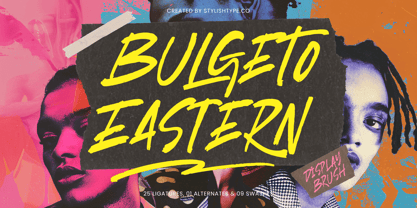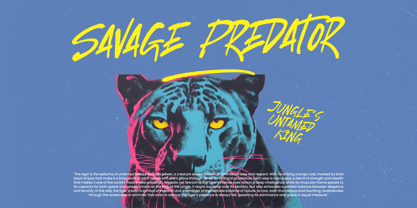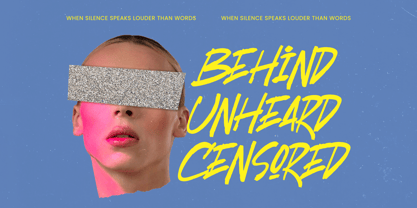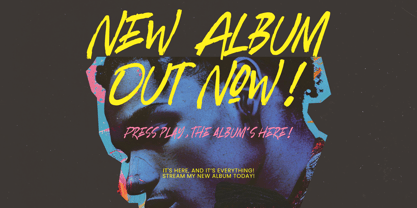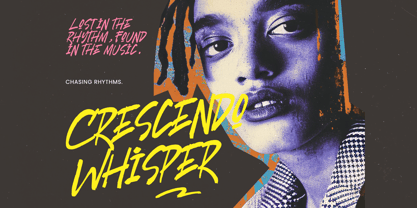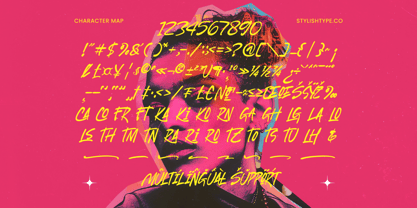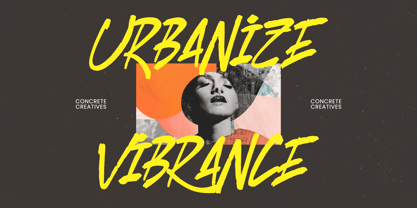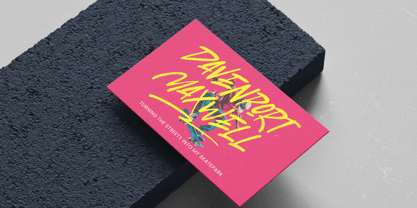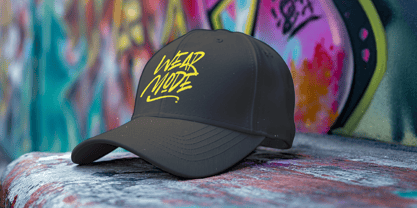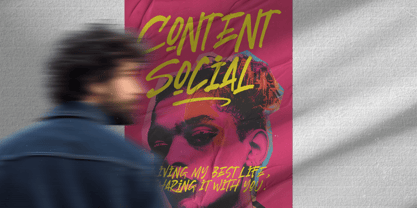
Bulgeto Eastern
by Stylishtype Studio
The Bulgeto Eastern Font Family was designed by Heru Utama Putra and published by Stylishtype Studio. Bulgeto Eastern contains 2 styles and family package options. More about this family
Bulgeto Eastern is a bold display brush font designed to deliver raw energy, urban attitude, and expressive character. Featuring dynamic strokes, textured brush details, and a powerful handwritten style, this typeface captures the spirit of street culture and modern creative expression. Perfect for music posters, album covers, apparel branding, social media graphics, advertising, and urban-themed designs, Bulgeto Eastern creates a striking visual impact with its edgy and contemporary appeal. Equipped with 25 ligatures, 7 alternates, and 9 swashes, it offers flexible stylistic variations while maintaining a cohesive and authentic brush aesthetic. Whether used for bold headlines or statement branding, Bulgeto Eastern brings confidence, creativity, and street-inspired flair to both print and digital projects.